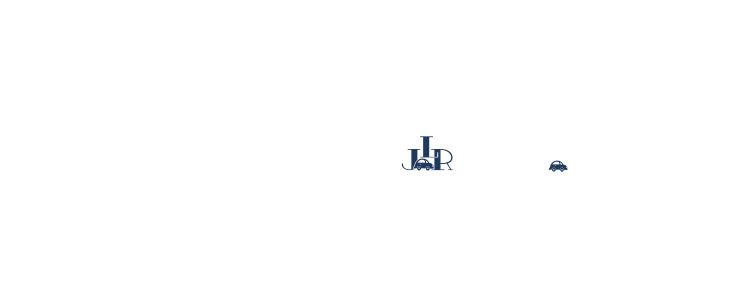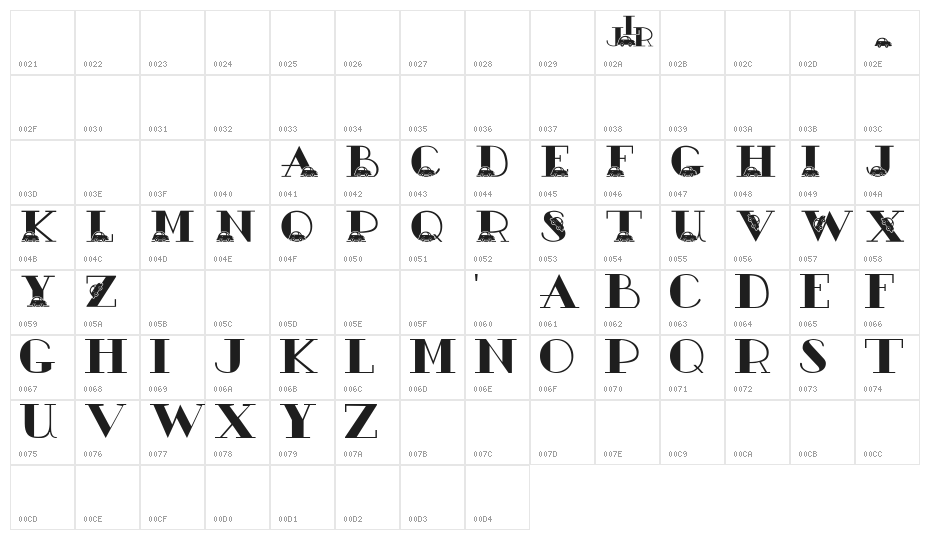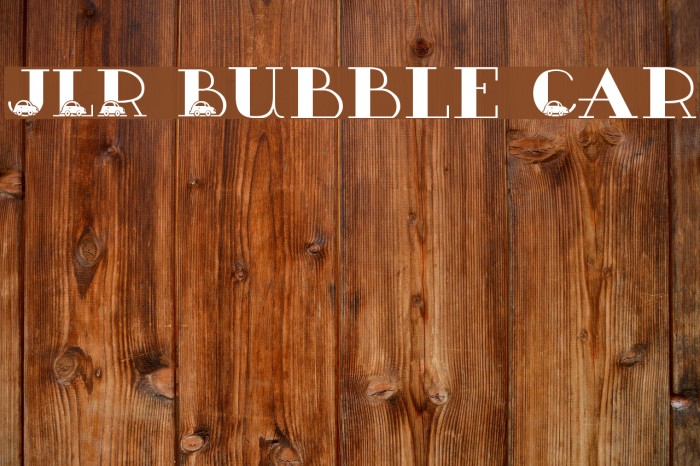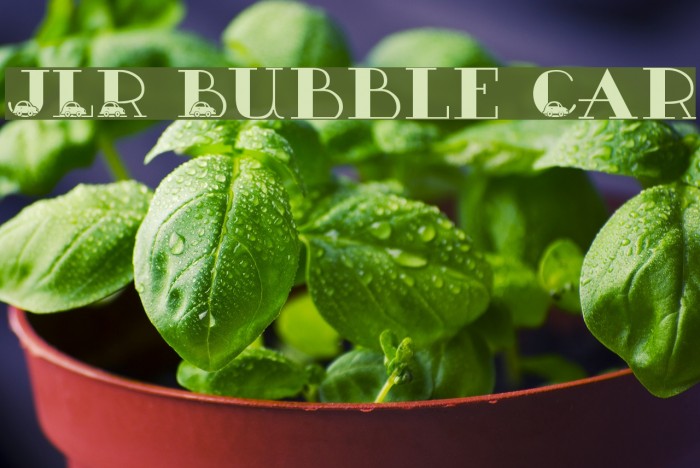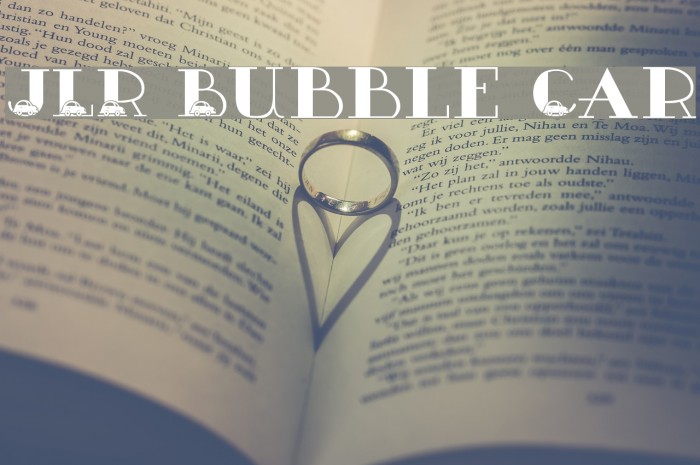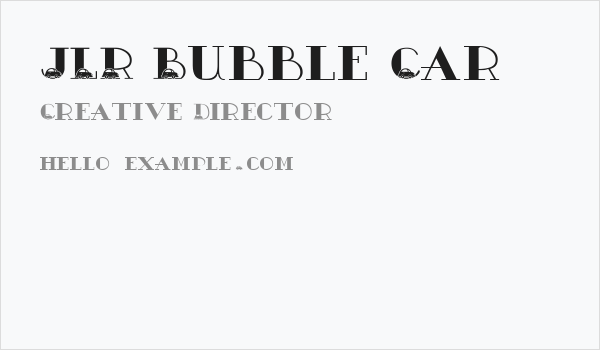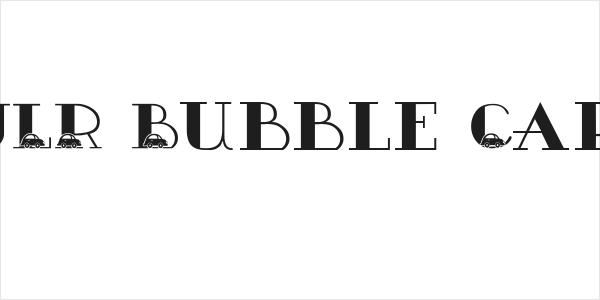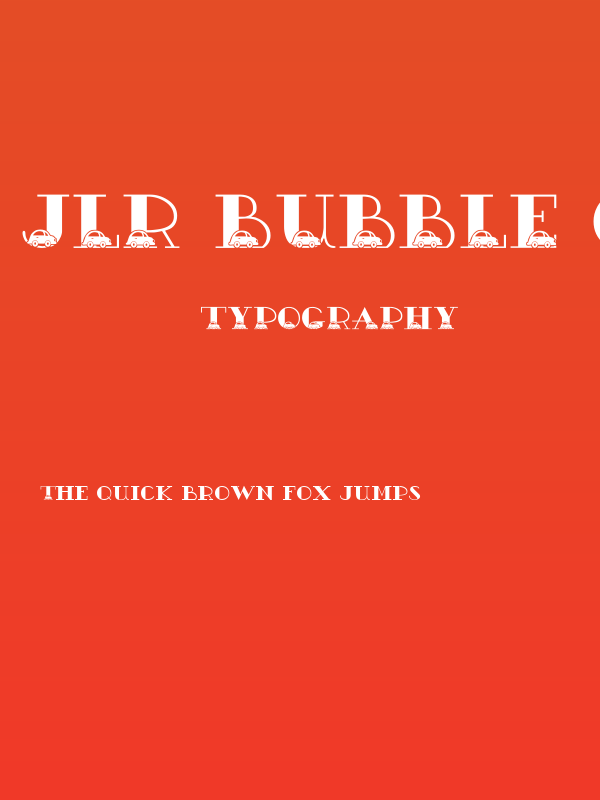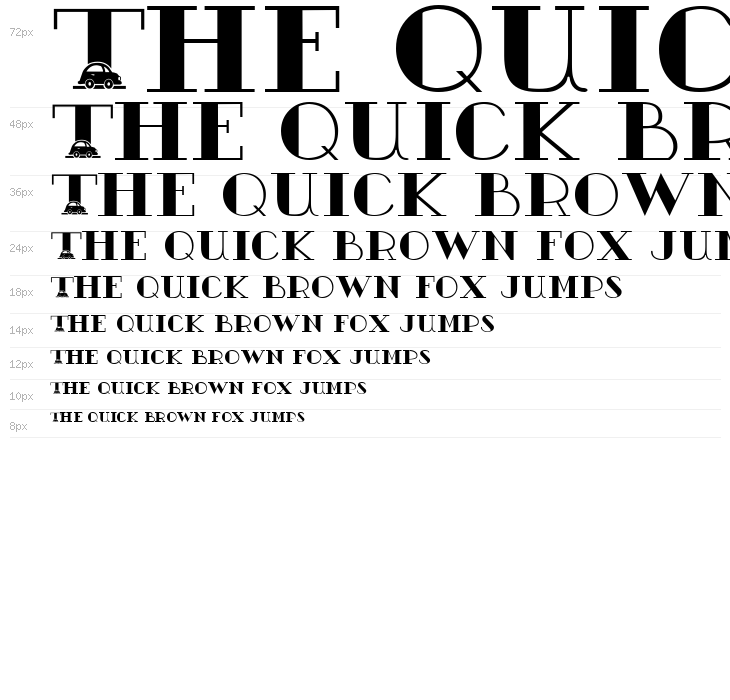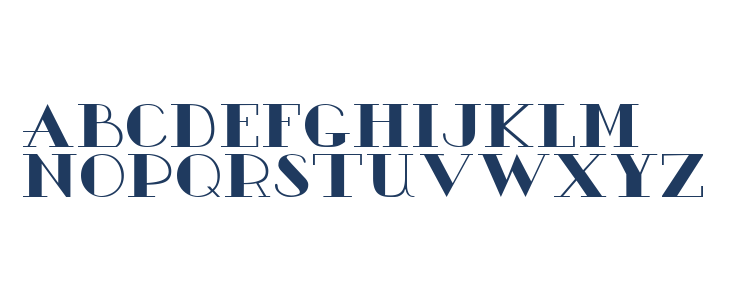
JLR Bubble Car Font
JLR Bubble Car Description
This font features a playful and unique design where each letter is adorned with a small car graphic integrated into the lower part of the character. The uppercase letters are bold and have a classic serif style, giving them a traditional yet whimsical appearance. The cars add a decorative element that makes the font stand out, ideal for projects that require a fun and engaging look. The font maintains a consistent weight and width across all characters, ensuring readability while still offering a distinctive visual appeal.
| Proposed Projects | Ideal for children's books, automotive-themed designs, playful branding, and creative posters. |